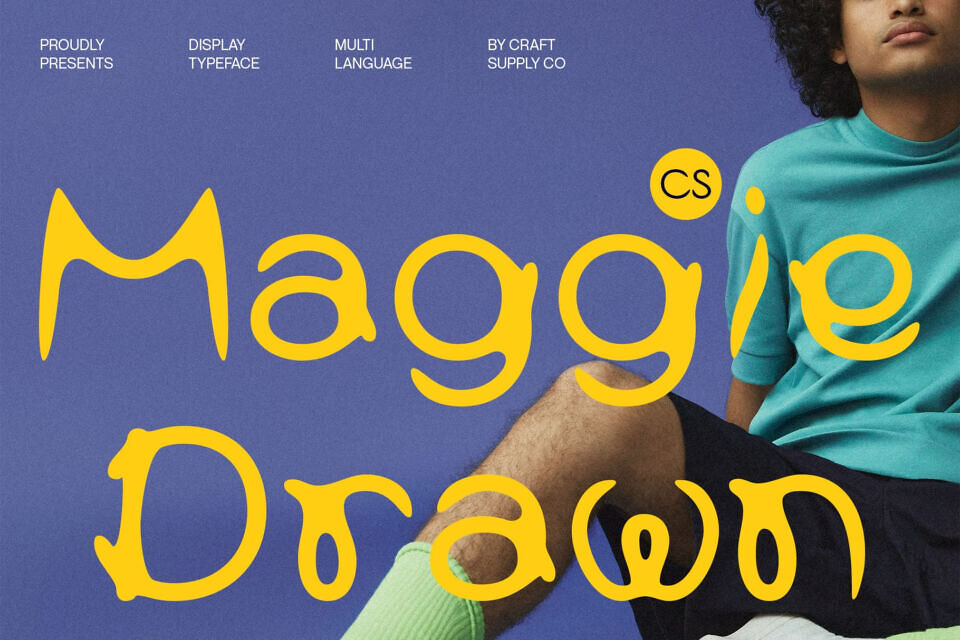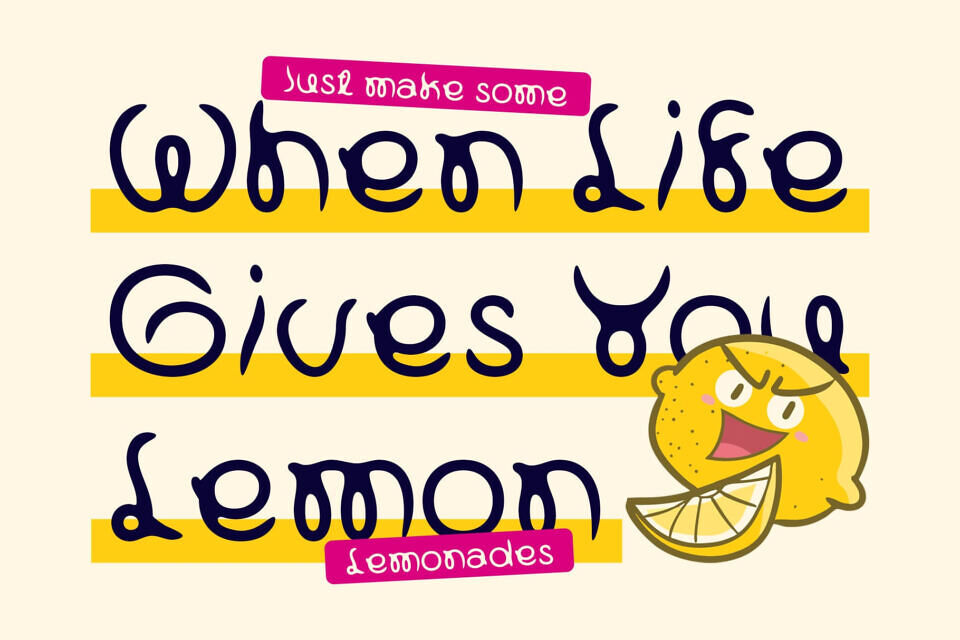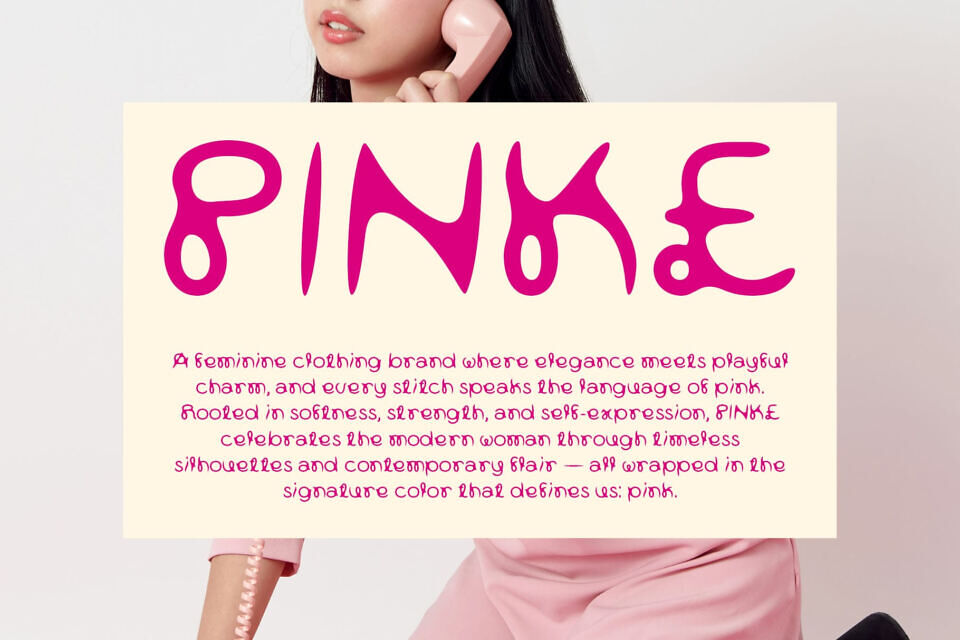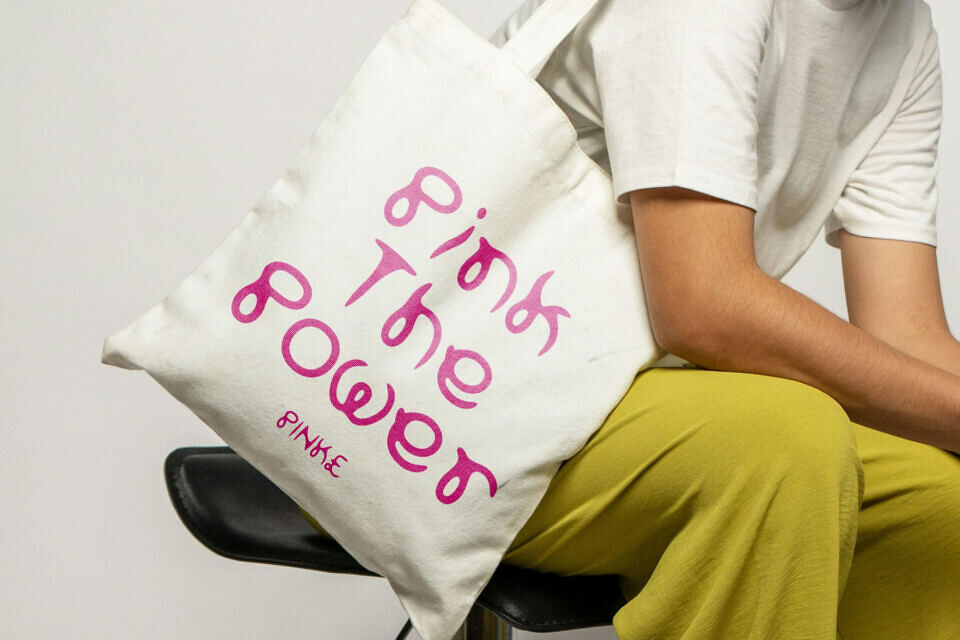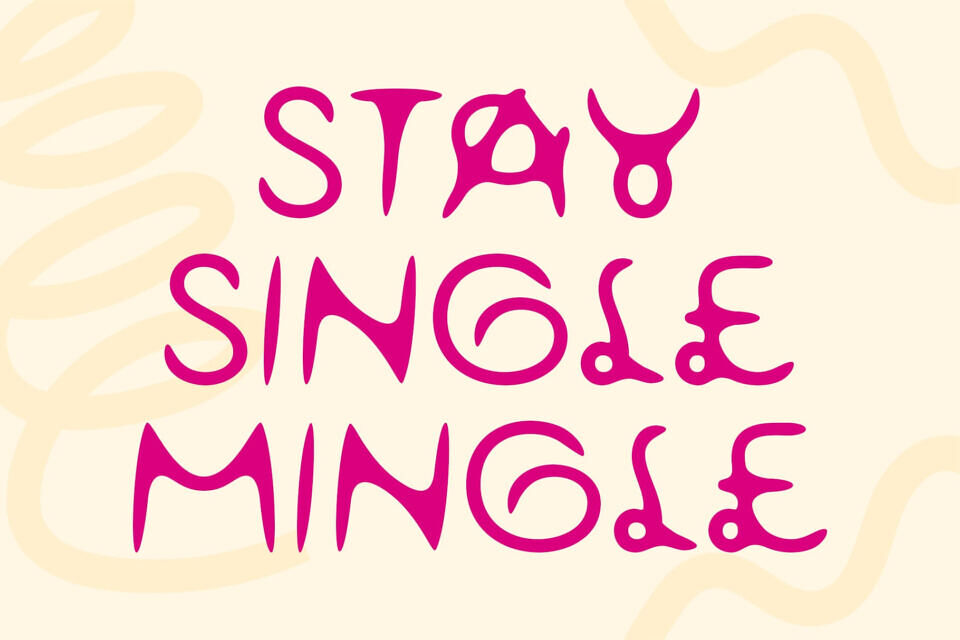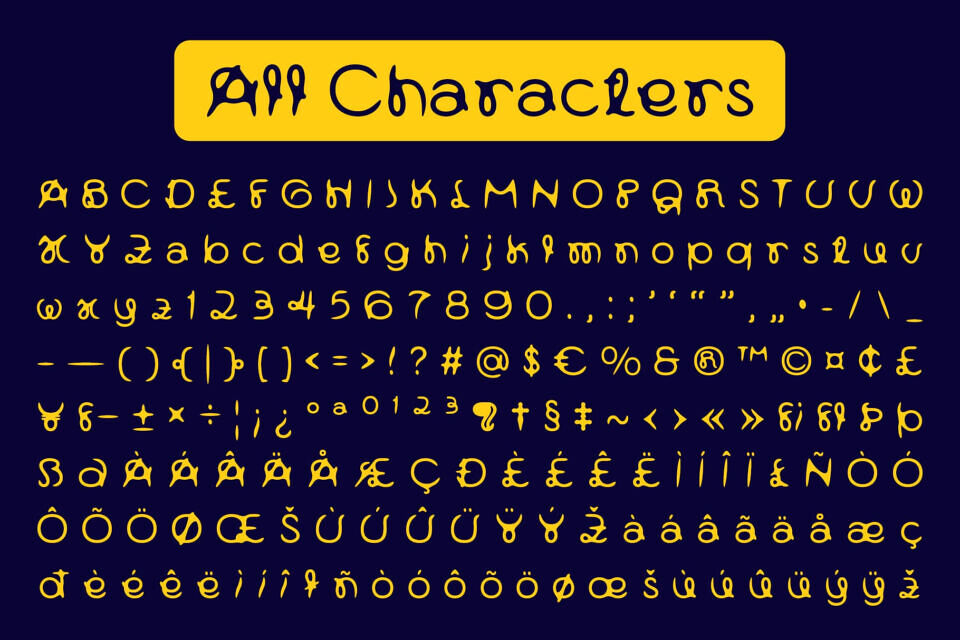
CS Maggie Drawn Font
Maggie Drawn font is a modern display font that combines a clean, contemporary structure with cute, funky decorative touches. The result is a cheerful and energetic design that’s bursting with personality—perfect for fun, expressive visual identities.
Each letterform is infused with a drawn effect, giving it a handcrafted, artistic personality. This detail introduces gentle imperfections that mimic real, hand-drawn strokes—bringing human warmth into digital designs. The result is a font that feels more expressive, vibrant, and emotionally engaging.
Maggie Drawn is a natural choice for lively and creative projects. Whether you’re designing children’s illustrations, party invitations, event posters, or fun and friendly branding, this font sets a joyful, imaginative tone. It invites viewers into a playful visual world full of charm and color.